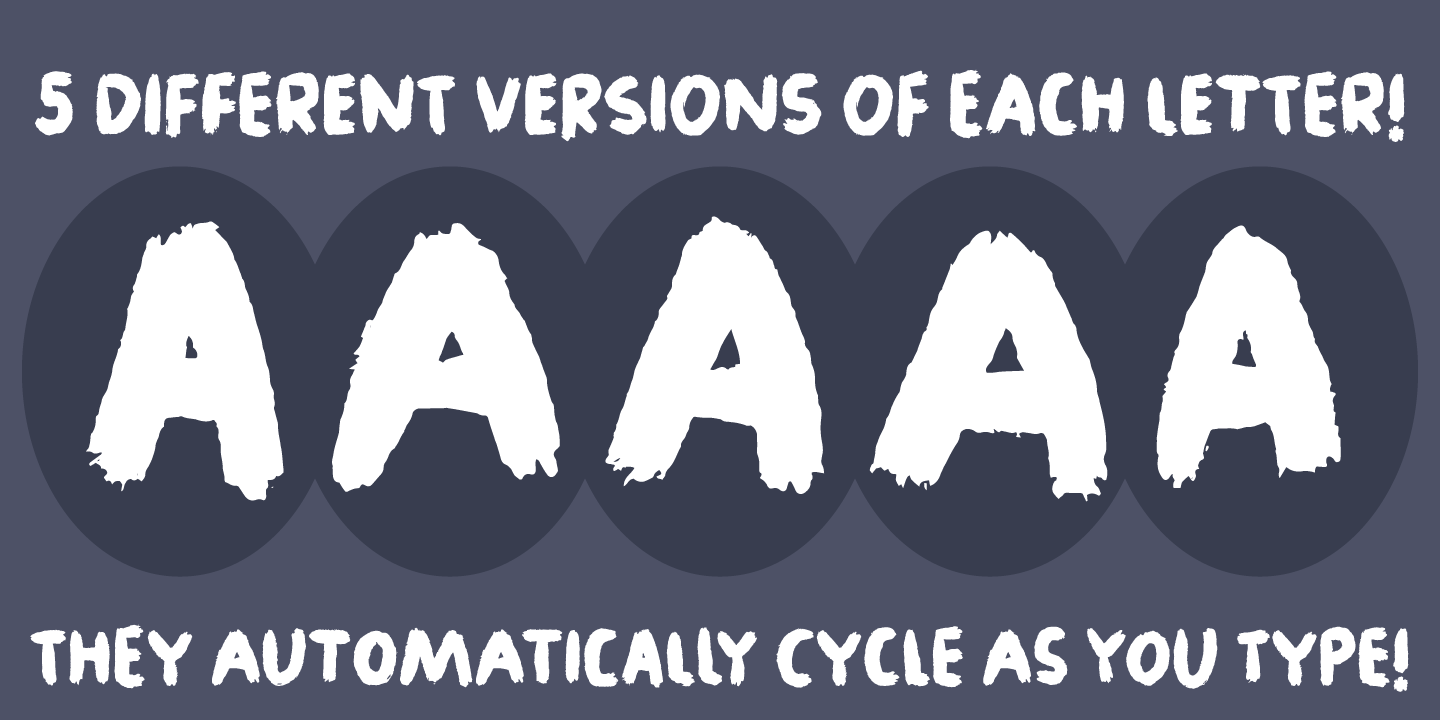
Legwork Font Free Download presents designers with a hardworking typeface that embodies industrial strength and determined sophistication with blue-collar authenticity. However, for commercial use, you must purchase this font. You can download it for free for testing purposes only.
Legwork Font excels in industrial design applications including construction company branding, manufacturing firm communications, trade skill training materials, industrial equipment packaging, blue-collar union publications, workforce development programs, heavy machinery advertisements, skilled labor recruitment, industrial safety signage, and hardworking lifestyle campaigns. This sturdy typeface brings authentic work ethic to labor-focused design projects.
What makes Legwork Font truly exciting is its perfect embodiment of honest labor with robust letterforms that reflect the strength and reliability of skilled craftsmanship and industrial dedication. The font features solid characters with workmanlike proportions and dependable structure that convey integrity, perseverance, and the dignity of honest work. Its industrial personality and hardworking character make it ideal for brands celebrating skilled labor, manufacturing excellence, and audiences who value craftsmanship quality, work ethic, and the fundamental importance of hands-on expertise that builds communities and creates lasting value.
The Legwork Font family typically includes multiple weights such as Regular, Medium, and Bold with potential condensed variations that enhance its industrial character. These robust options provide designers with complete blue-collar styling while maintaining the font's distinctive working-class elegance and industrial presentation across various labor applications and manufacturing contexts.
Whether you're developing industrial branding, creating workforce campaigns, or designing blue-collar marketing materials, Legwork Font Free Download delivers the industrial authority and hardworking sophistication that labor-focused projects require. Its exceptional strength and authentic appeal make it invaluable for designers working with manufacturing companies, trade organizations, and skilled labor brands requiring typography that honors working-class values, celebrates industrial craftsmanship, and reflects the dedicated spirit of those who build, create, and maintain the essential infrastructure that supports modern society through honest work and skilled expertise.